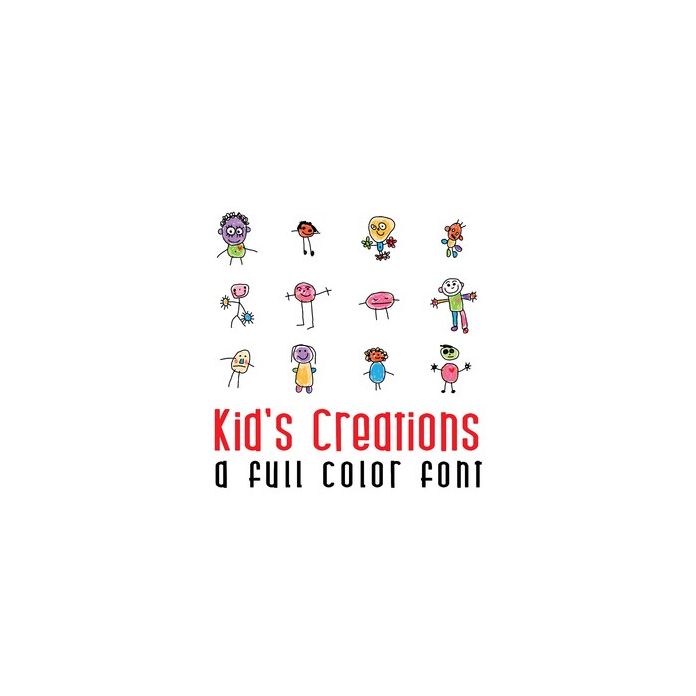
This adorable full-color doodlebat font features 26 adorable kid style art. Perfect for cards, crafts, gifts, decor, scrapbook pages, planner stickers, and more!